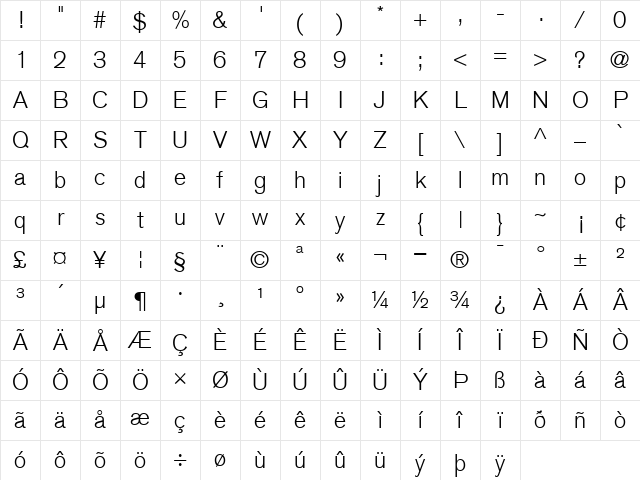
Akzidenz Gr Lt Regular
Akzidenz Gr Lt Family
Design Context for Akzidenz Gr Lt
Akzidenz Gr Lt is a composed and adaptable typeface that performs quietly and consistently across a wide range of design contexts. Its slender proportions lend an understated elegance to any composition.
Pro Tip: Use Akzidenz Gr Lt in both headline and body roles to test its range before committing to a single application.